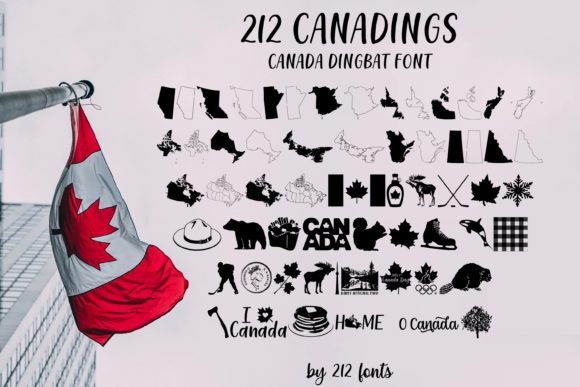
The Ultimate Design Companion: 212 Canadings Font
I’ll never forget the time I was working on a project for a Canadian client, and I was struggling to find the perfect font that captured the essence of the Great White North. I wanted something that would make their brand stand out, but also pay homage to their heritage. That’s when I stumbled upon the 212 Canadings font, and it was love at first sight! 😍
This fun dingbat font is a treasure trove of Canada-themed goodies, featuring maps, provinces, and iconic symbols that will make your designs shine. In this article, I’ll share my honest review, a step-by-step guide on how to use it, and some valuable insights on similar fonts and design inspiration.
- ✨ Extensive library of Canada maps and provinces in solid and outline form
- ✅ Tons of iconic Canadian symbols, from mountains to wildlife
- 🤔 Some characters may require manual kerning for optimal results
- ⚠️ Limited language support, but that’s to be expected with a dingbat font
Designer Inspiration: The Story Behind 212 Canadings
The story behind 212 Canadings is one of passion and creativity. The designer, inspired by their love for Canada and its rich heritage, created this font as a way to share that passion with the world. With a keen eye for detail and a deep understanding of what makes Canada unique, they carefully crafted each glyph and symbol to ensure that it would be both functional and beautiful.
| What type of font is 212 Canadings? | 212 Canadings is a dingbat font featuring Canada-themed symbols and glyphs. |
In conclusion, 212 Canadings is an amazing font that’s perfect for designers, crafters, and creative hobbyists looking to add a touch of Canada to their projects. With its extensive library of symbols and glyphs, it’s sure to become a staple in your design toolkit. So go ahead, get creative, and show off your Canadian pride! 🎉